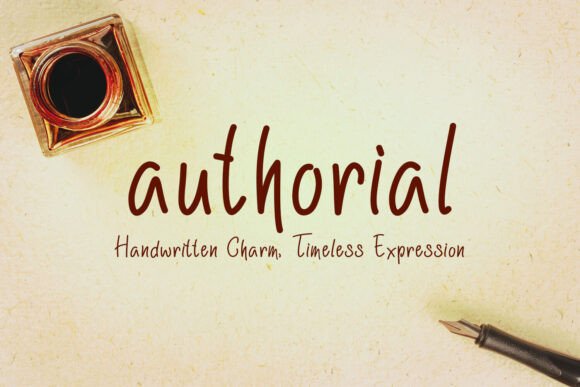
Discover the Elegance of Authorial Font: A Modern Take on Classic Penmanship
In the world of typography, few fonts manage to strike a balance between classic elegance and modern whimsy. The Authorial font is one such typeface that effortlessly blends the sophistication of traditional penmanship with a fresh, contemporary twist. This beautiful, handwritten font is designed to bring a personal, human touch to a wide range of projects, from book covers and quotes to invitations and more.
The Characteristics of Authorial Font
At the heart of the Authorial font lies its unique blend of monoline strokes that are smooth and fluid. Each character is crafted with a graceful flow, making it feel both refined and approachable. The font features an elegant, slightly elongated form that lends a literary quality, perfect for projects that require a touch of sophistication and personality.
One of the standout features of Authorial is its versatility. The font boasts clean lines and gentle curves, making it an excellent choice for a variety of applications. Whether you’re working on a book cover, a quote, or an invitation, Authorial brings a level of expressiveness and engagement that’s hard to match.
The subtle variations in character height and spacing are also noteworthy. These nuances evoke the organic feel of handwriting, giving the font a warm, personal touch. Yet, despite its handcrafted appearance, Authorial remains highly readable, making it a practical choice for designers and writers alike.
The Art of Handwritten Typography
Handwritten typography has a unique charm that digital fonts often struggle to replicate. The Authorial font, however, comes remarkably close. Its monoline strokes are reminiscent of classic penmanship, where each letter is crafted with care and precision.
What sets Authorial apart is its ability to convey emotion and personality. In an age where digital communication dominates, the font offers a refreshing respite. It brings a human touch to the written word, making it perfect for projects where you want to connect with your audience on a more personal level.
From a design perspective, Authorial is incredibly versatile. It can be used in a variety of contexts, from formal to informal, and still manage to convey a sense of elegance and refinement. This adaptability makes it an excellent addition to any designer’s toolkit.
Applications of Authorial Font
So, where can you use the Authorial font? The answer is almost anywhere. Here are a few ideas to get you started:
- Book Covers: Authorial is perfect for book covers, especially for fiction, poetry, and literary non-fiction. Its elegant, refined appearance helps to convey the tone and personality of the book.
- Quotes and Posters: The font’s expressive, handcrafted quality makes it ideal for quotes and posters. It adds a touch of personality and whimsy, making your message more engaging and memorable.
- Invitations: Whether you’re planning a wedding, a party, or a corporate event, Authorial is an excellent choice for invitations. Its refined appearance and personal touch help set the tone for your event.
- Branding and Packaging: For brands looking to convey a sense of sophistication and elegance, Authorial can be a great fit. It’s particularly suitable for brands in the creative, literary, or lifestyle sectors.
These are just a few examples of where Authorial can be used. Ultimately, the font’s versatility means it can be applied to a wide range of projects, limited only by your imagination.
The Benefits of Using Authorial Font
There are several benefits to using the Authorial font in your projects. Here are a few:
- Unique and Memorable: Authorial’s distinctive appearance helps your project stand out. Its unique blend of classic elegance and modern whimsy makes it memorable and engaging.
- Versatile: As mentioned earlier, Authorial is incredibly versatile. It can be used in a variety of contexts, from formal to informal, and still manage to convey a sense of elegance and refinement.
- Readability: Despite its handcrafted appearance, Authorial remains highly readable. This makes it a practical choice for designers and writers who need to balance aesthetics with functionality.
- Emotional Connection: The font’s handcrafted quality helps to create an emotional connection with your audience. It brings a human touch to the written word, making your message more relatable and engaging.
By choosing Authorial, you’re not just selecting a font; you’re adding a layer of depth and personality to your project. This can have a significant impact on how your message is received and remembered.
Tips for Using Authorial Font Effectively
To get the most out of Authorial, here are a few tips to keep in mind:
- Pair it with Other Fonts: Authorial works well when paired with other fonts. Experiment with different combinations to find the perfect balance for your project.
Whether you’re working on a book cover, a quote, an invitation, or any other project, Authorial is an excellent choice. Its expressive, handcrafted quality helps to create an emotional connection with your audience, making your message more relatable and engaging.
So why settle for a generic, impersonal font when you can add a touch of personality and sophistication to your project? Discover the elegance of Authorial font today and take your designs to the next level.